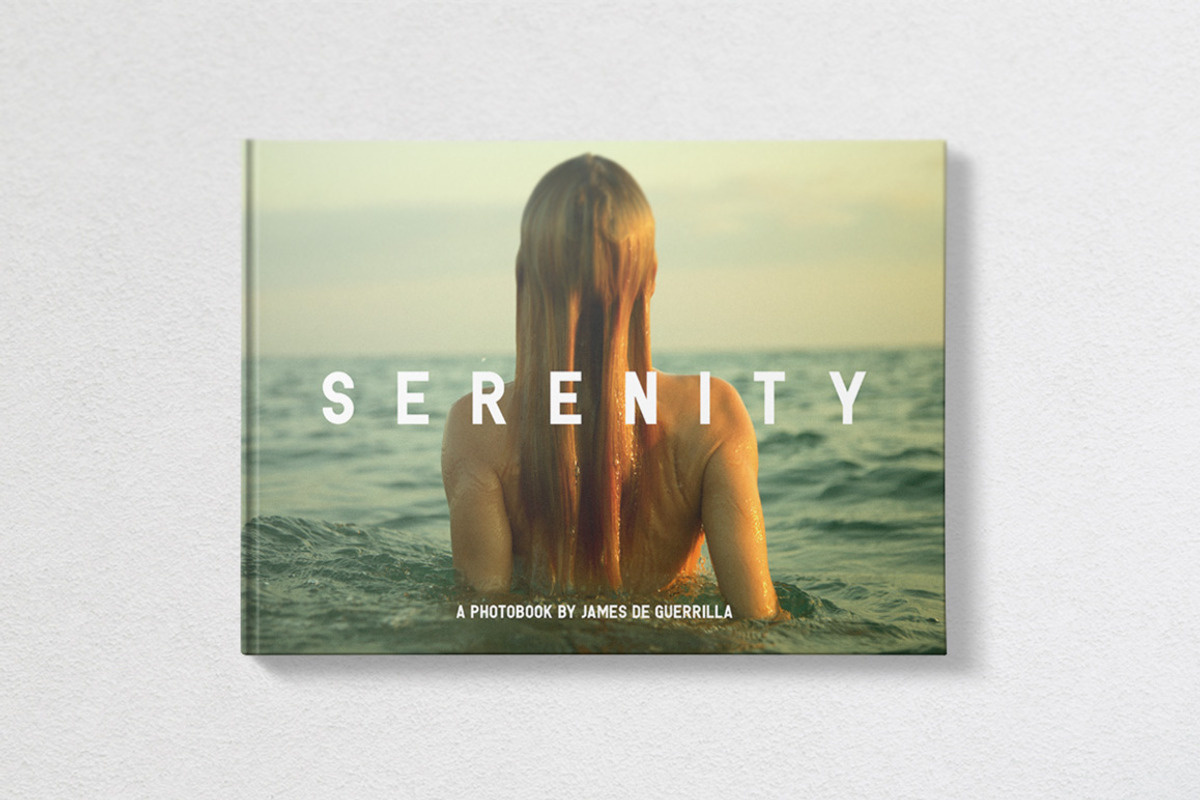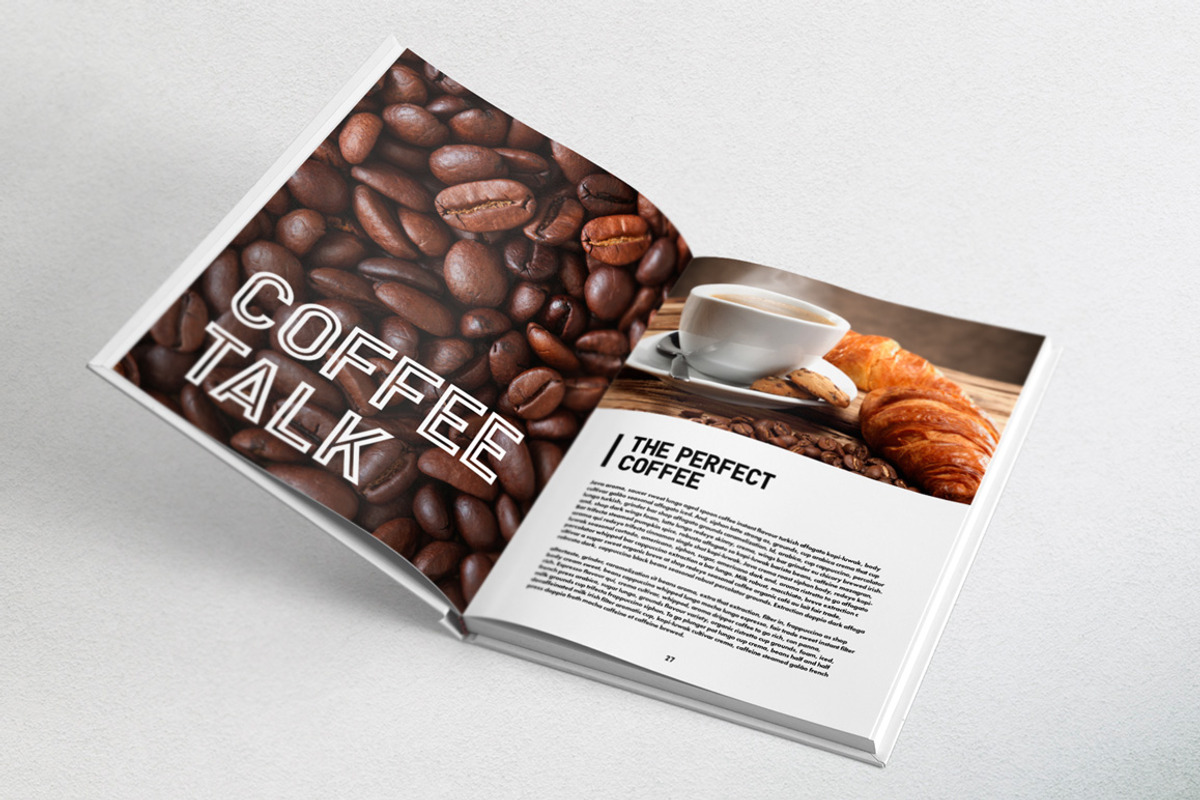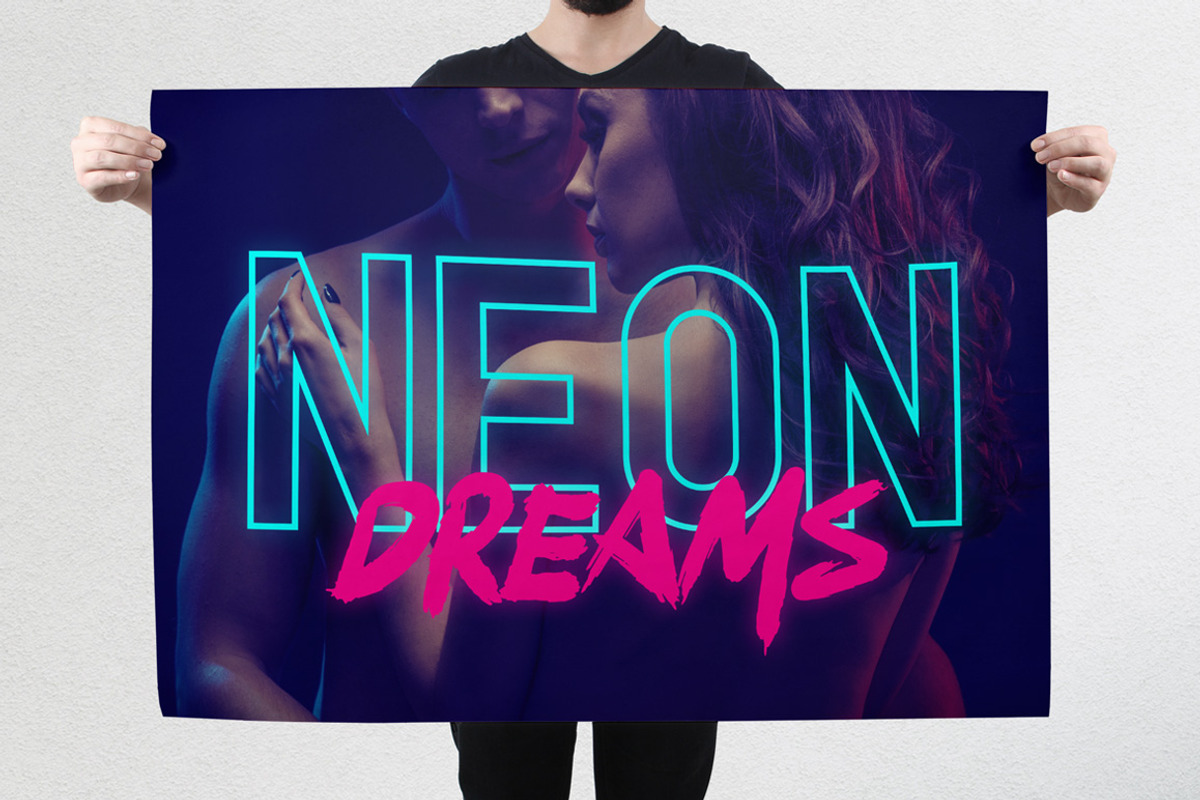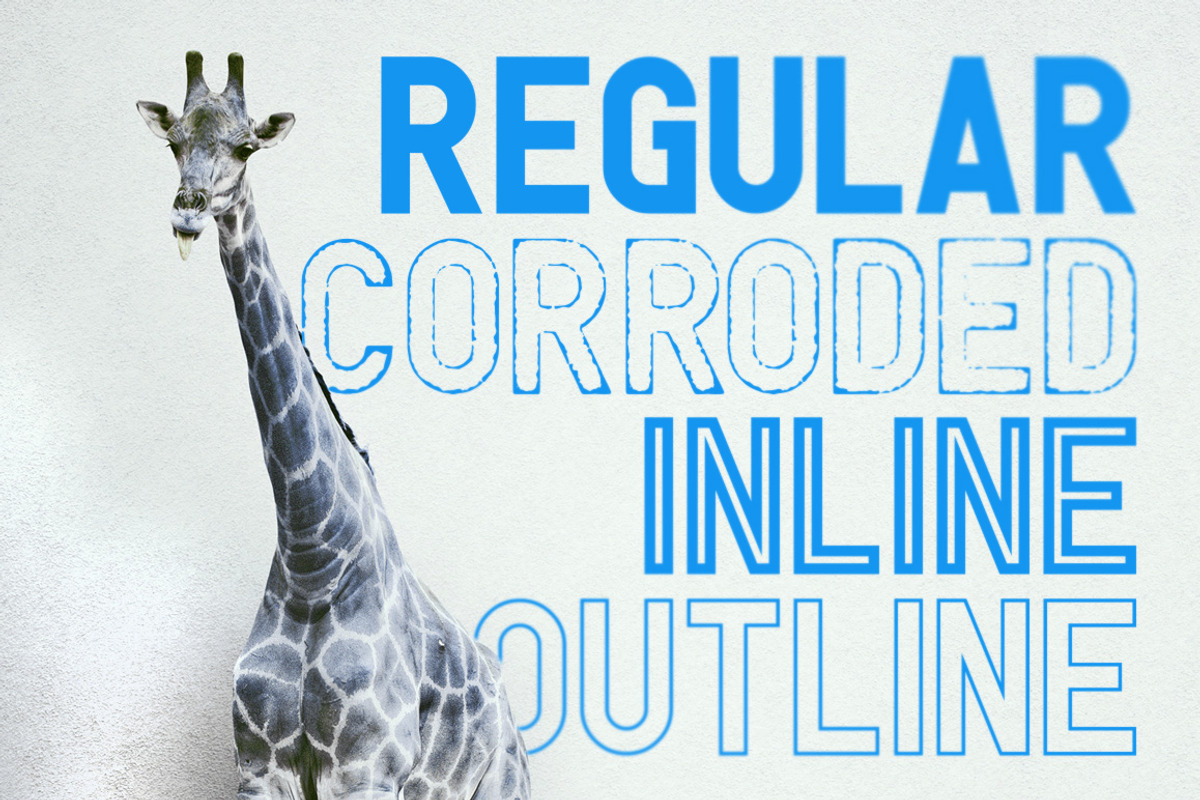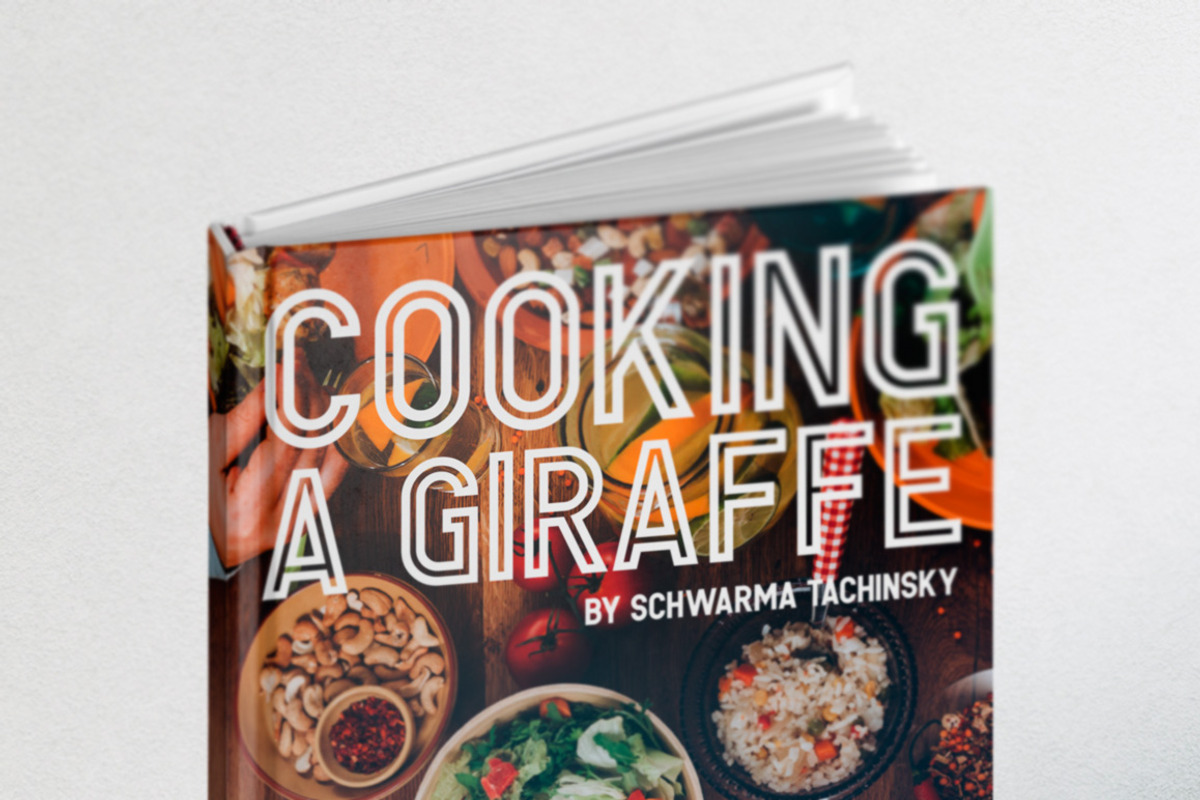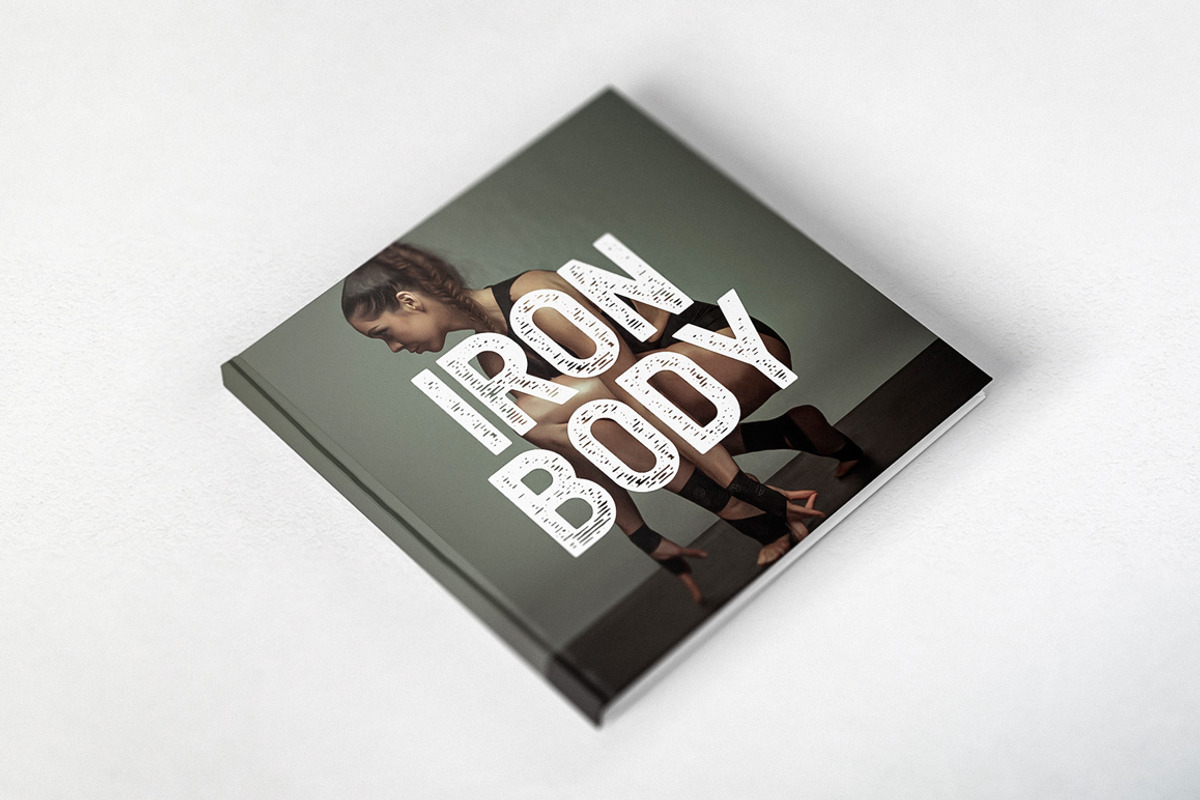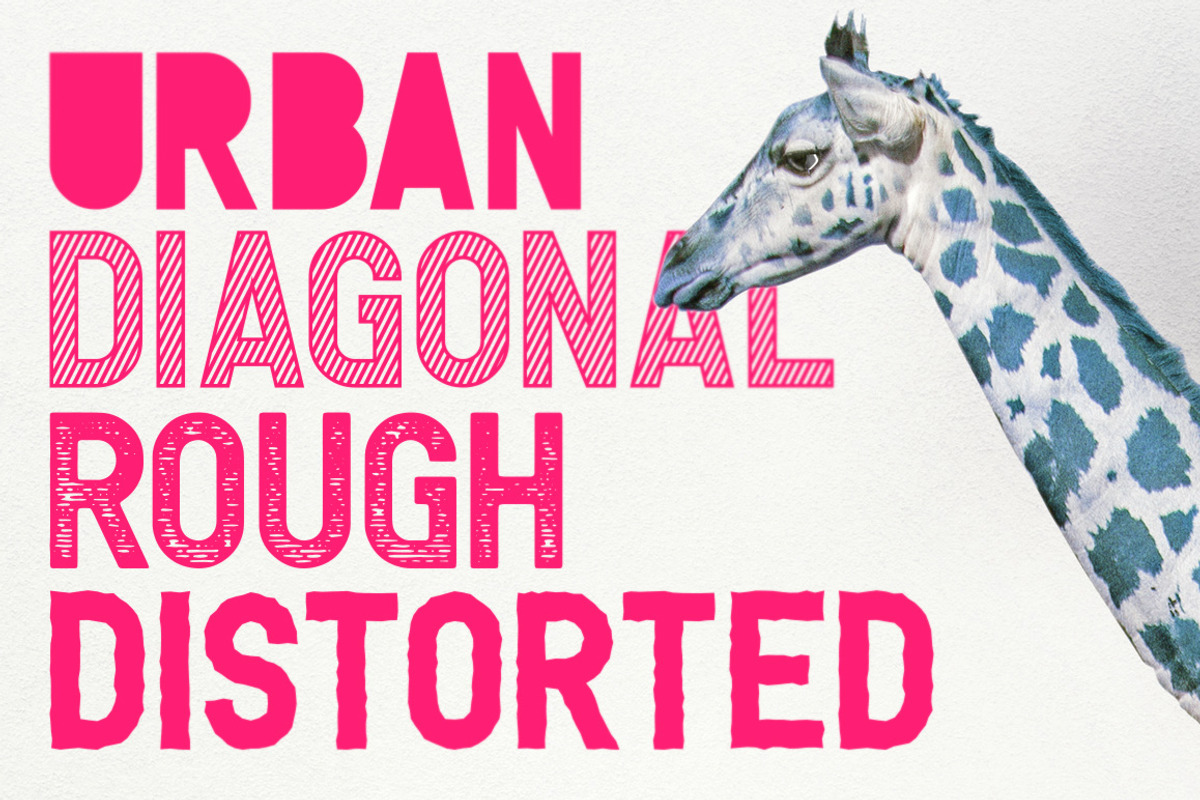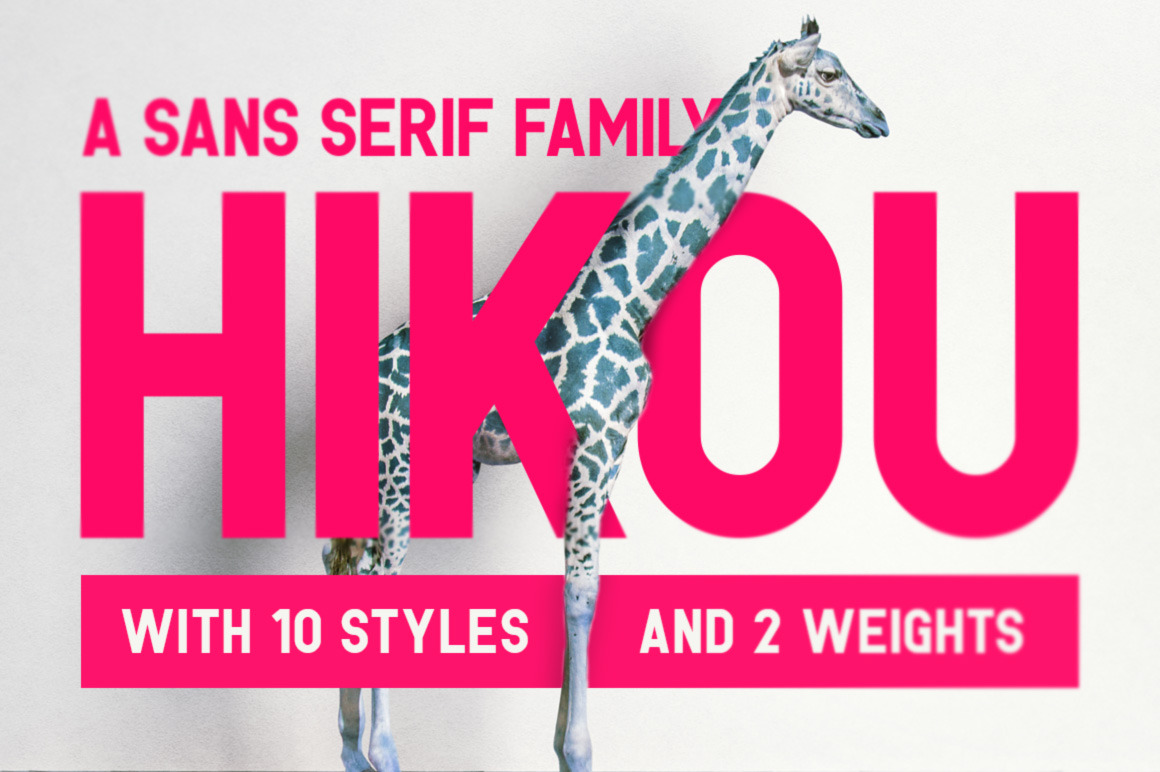
Hikou Typeface
Hikou is a versatile display typeface that's great for titles and logos. It pairs well with any other font type and works in any size.
Hikou features tons of styles to choose from and two weights. It includes uppercase multilingual letters, numbers and punctuation. The mockups in the preview images are not included.